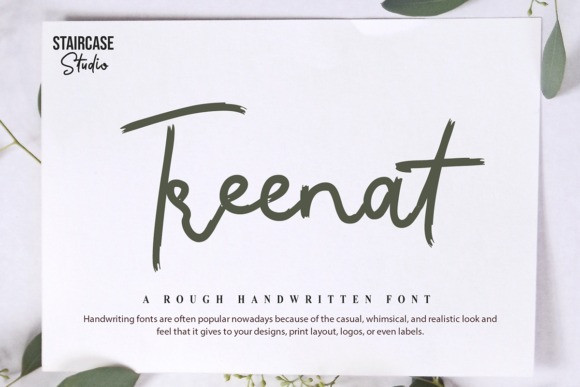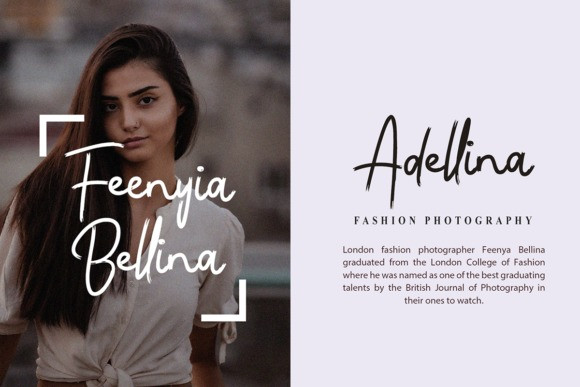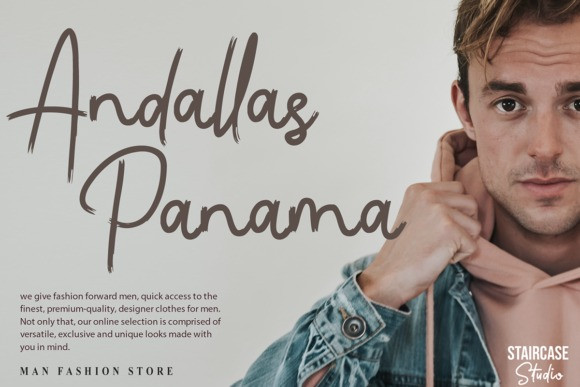
Treenat Font
Treenat is a rough handwritten font. A collection of letters and numbers suitable for your creative projects. It is also great for Logotypes, Branding Designs, Logo Designs, Digital Lettering Arts, T-shirts/Apparel, Posters, Magazines, Signs, Advertising Designs, and so much more.